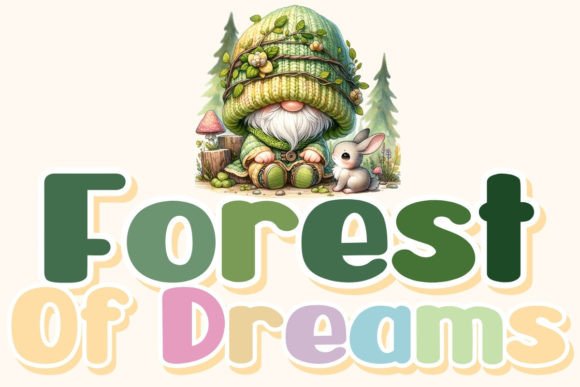
Introducing Forest of Dreams Font: Whimsical Elegance for Your Creative Projects
In the realm of typography, few fonts manage to capture the essence of enchantment and creativity as effectively as the Forest of Dreams font. This beautiful, cute, and handwritten font is a masterpiece of design, exuding charm and elegance through its whimsical strokes and playful curves. If you’re looking to add a touch of magic to your projects, making them truly one-of-a-kind, then Forest of Dreams is the perfect choice. In this article, we’ll explore the unique characteristics of the Forest of Dreams font, its applications, and how it can transform your text into a work of art.
Unique Features of Forest of Dreams Font
- Whimsical Strokes: The Forest of Dreams font is characterized by its whimsical strokes that dance across the page, adding a playful and enchanting quality to any text.
- Playful Curves: The font’s playful curves bring a sense of elegance and sophistication, making it suitable for a wide range of creative projects.
- Handwritten Charm: As a handwritten font, Forest of Dreams possesses a unique charm that is hard to find in more traditional typography.
- Elegant and Cute: The font strikes the perfect balance between being cute and elegant, making it versatile for various design applications.
Applications of Forest of Dreams Font
The versatility of the Forest of Dreams font makes it suitable for a myriad of applications. Whether you’re working on a creative project, designing a brand identity, or simply looking to add some personality to your digital content, this font can help you achieve your goals.
- Branding and Logos: Use Forest of Dreams to create unique and memorable brand identities that stand out from the crowd.
- Digital Content: Add a touch of whimsy and elegance to your blog posts, social media content, and website designs.
- Print Materials: From invitations and greeting cards to posters and flyers, this font can elevate your print materials to new heights.
- Packaging: Make your product packaging truly special with the enchanting and playful feel of Forest of Dreams.
Transforming Your Text into a Work of Art
One of the most remarkable aspects of the Forest of Dreams font is its ability to transform ordinary text into a work of art. The whimsical strokes and playful curves work together to create a visually stunning effect that captivates the reader’s attention.
Whether you’re a designer looking to add some flair to your projects or a business owner seeking to create a unique brand identity, Forest of Dreams can help you achieve your goals. The font’s enchanting quality makes it perfect for:
- Headings and Titles: Use Forest of Dreams to create eye-catching headings and titles that draw the reader in.
- Quotes and Sayings: Add a touch of elegance and whimsy to your favorite quotes and sayings.
- Stories and Narratives: Bring your stories to life with the playful and enchanting feel of Forest of Dreams.
Tips for Using Forest of Dreams Font
To get the most out of the Forest of Dreams font, here are a few tips to keep in mind:
- Pair with Other Fonts: Experiment with pairing Forest of Dreams with other fonts to create a unique and visually appealing effect.
- Use in Moderation: While the font is enchanting, using it in moderation can help maintain its impact and prevent it from becoming overwhelming.
- Adjust Size and Color: Play around with different sizes and colors to find the perfect combination for your project.
In conclusion, the Forest of Dreams font is a beautiful, cute, and handwritten font that can add a touch of magic to your projects. Its whimsical strokes and playful curves make it perfect for a wide range of creative applications, from branding and logos to digital content and print materials. With its enchanting quality and versatility, Forest of Dreams is sure to transform your text into a work of art.